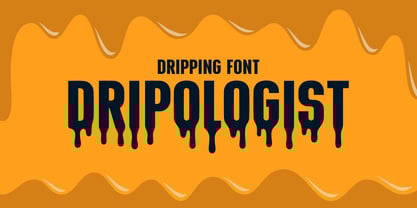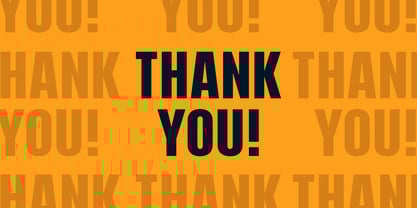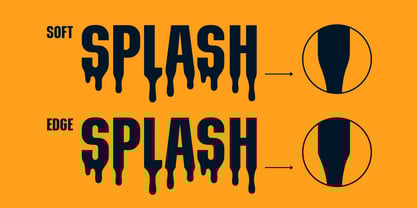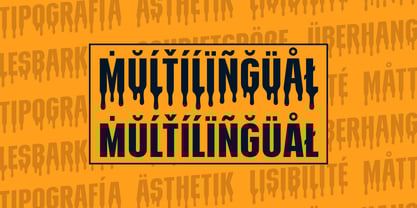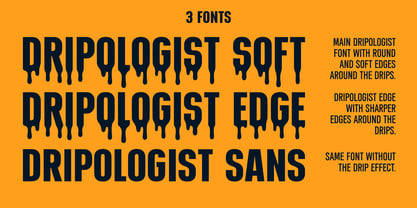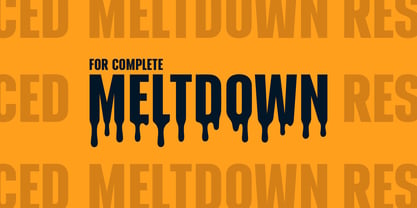
Dripologist
The Dripologist Font Family was designed by and published by RADesigns21. Dripologist contains 3 styles and family package options.
Dripologist – The Ultimate Dripping Family
Dripologist is a bold and modern dripping font family with a striking liquid effect. This versatile typeface comes in three distinct styles: Dripologist Soft for a smooth, flowing look, Dripologist Edge for a sharper, more intense aesthetic, and a Sans Serif for a clean, non-dripping option. Perfect for edgy branding, horror themes, streetwear designs, or anything that demands a bold, fluid statement. Let Dripologist add a splash of creativity to your next project!